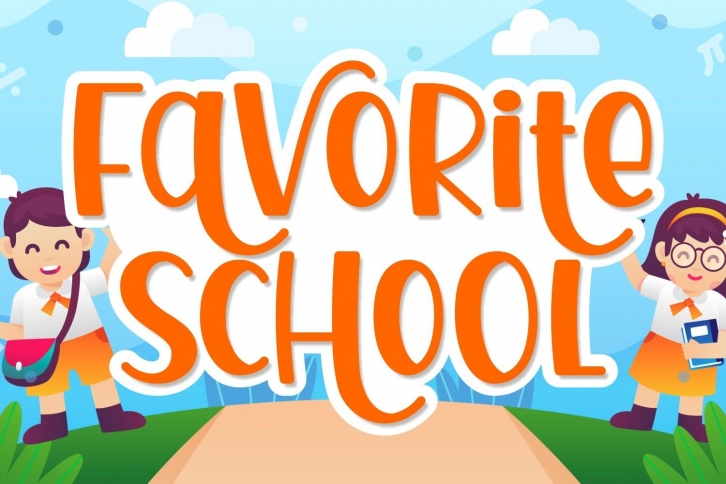
Favorite School is the perfect display font for products with a youthful and exuberant look. Add it to storybooks, back-to-school items, magazines, product packaging, menus, or more.